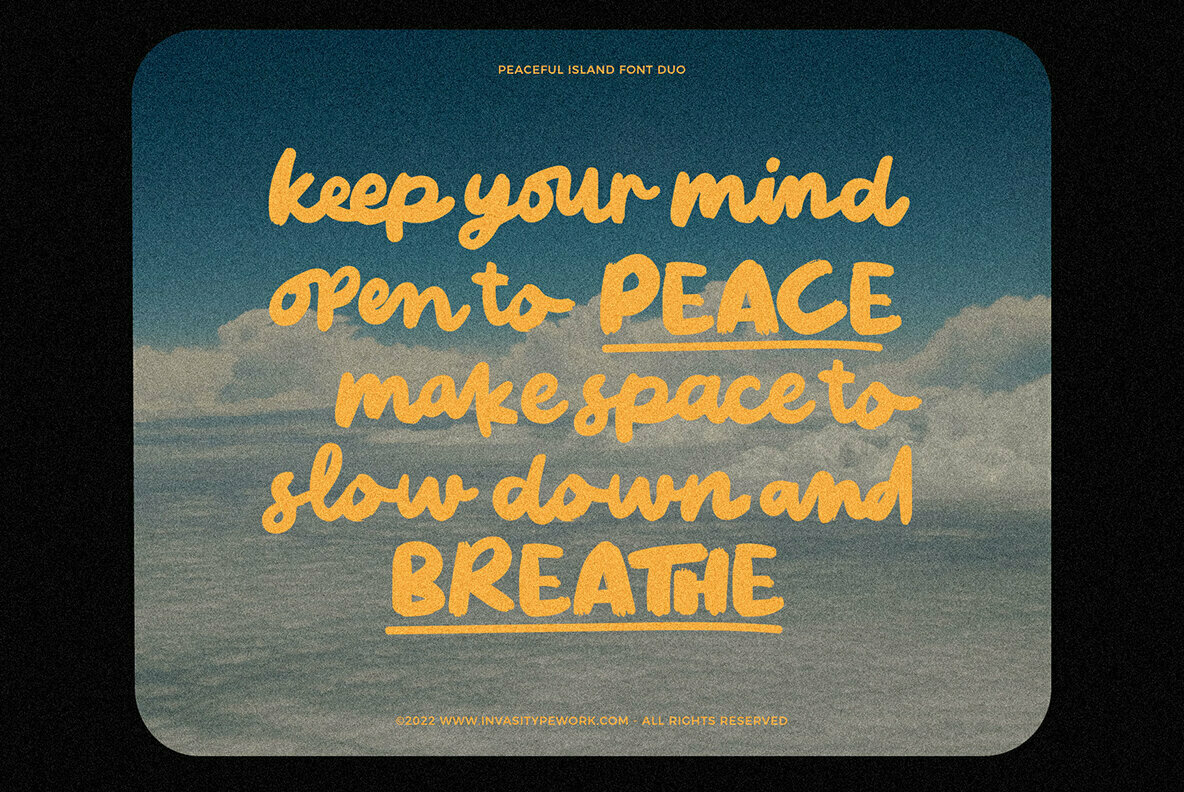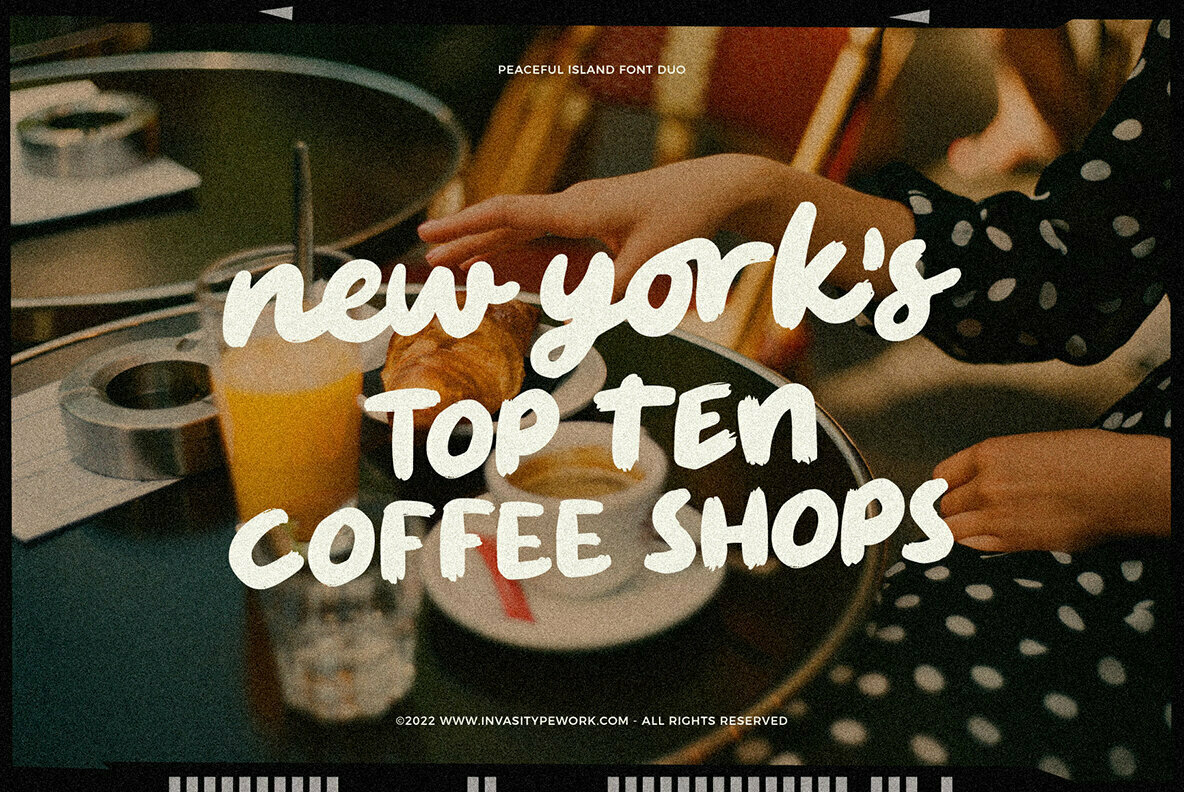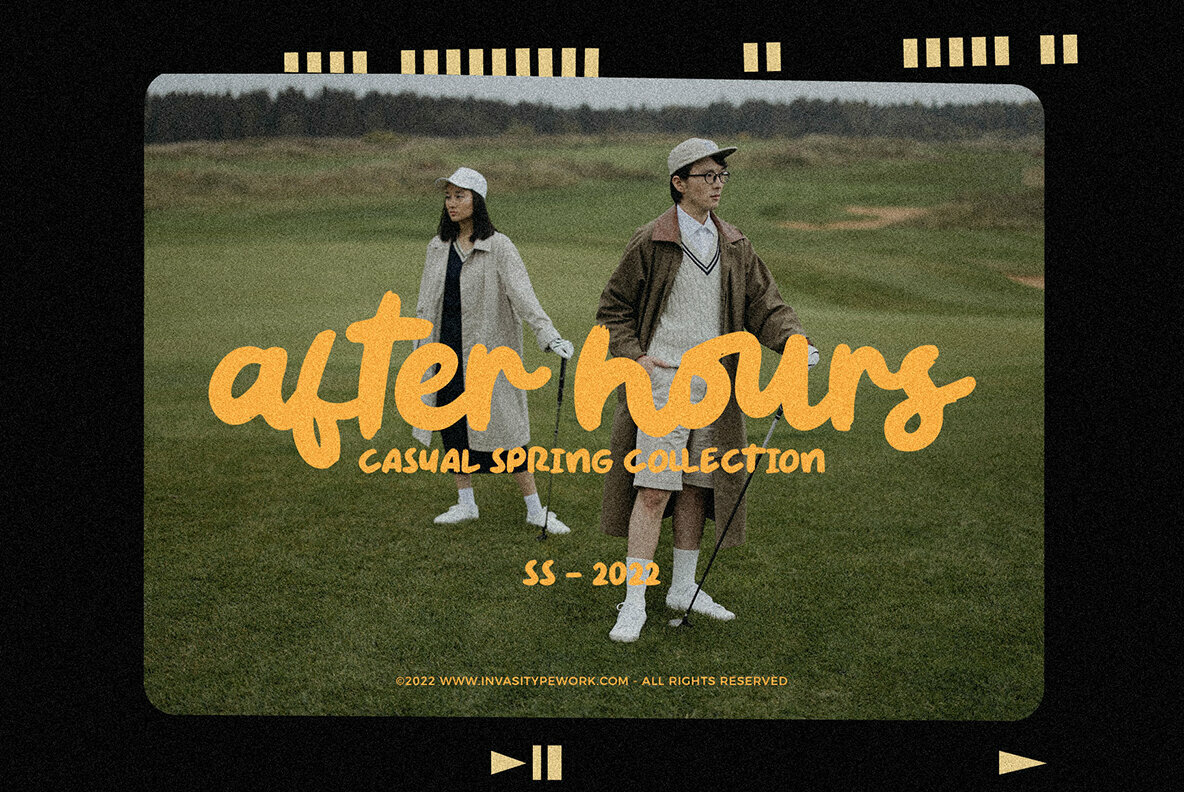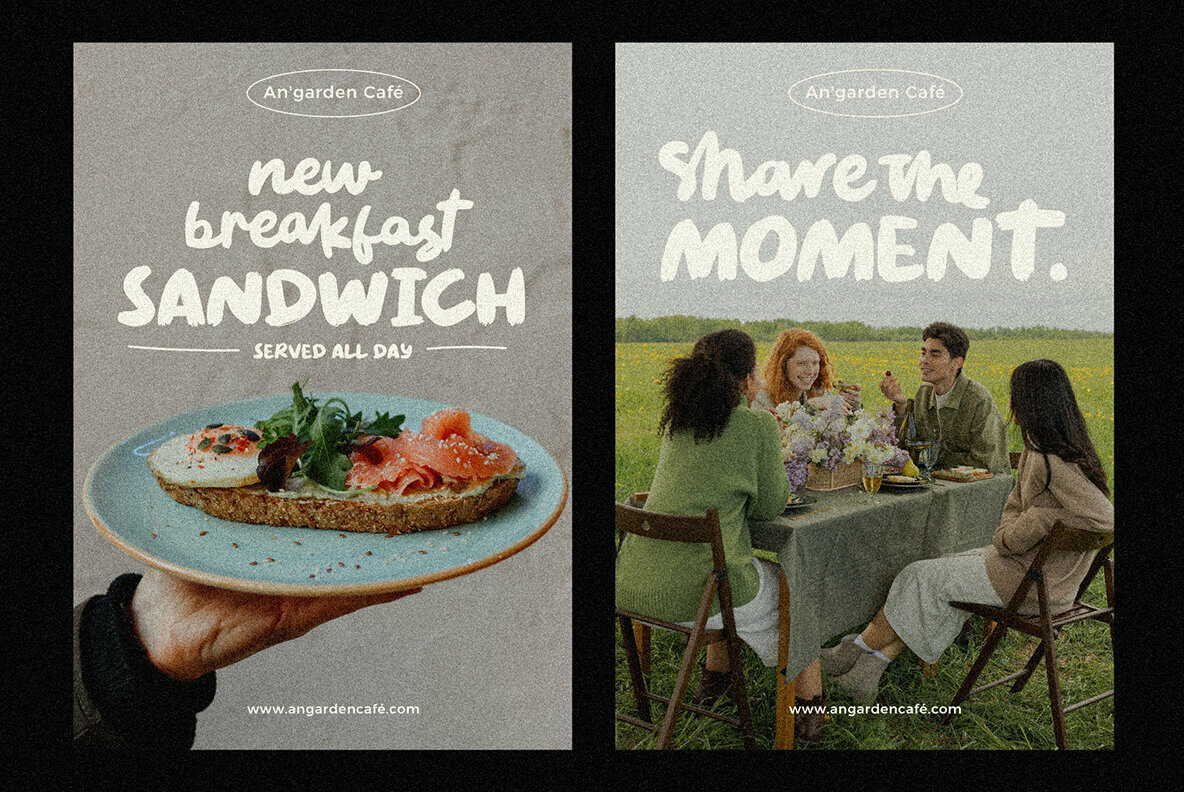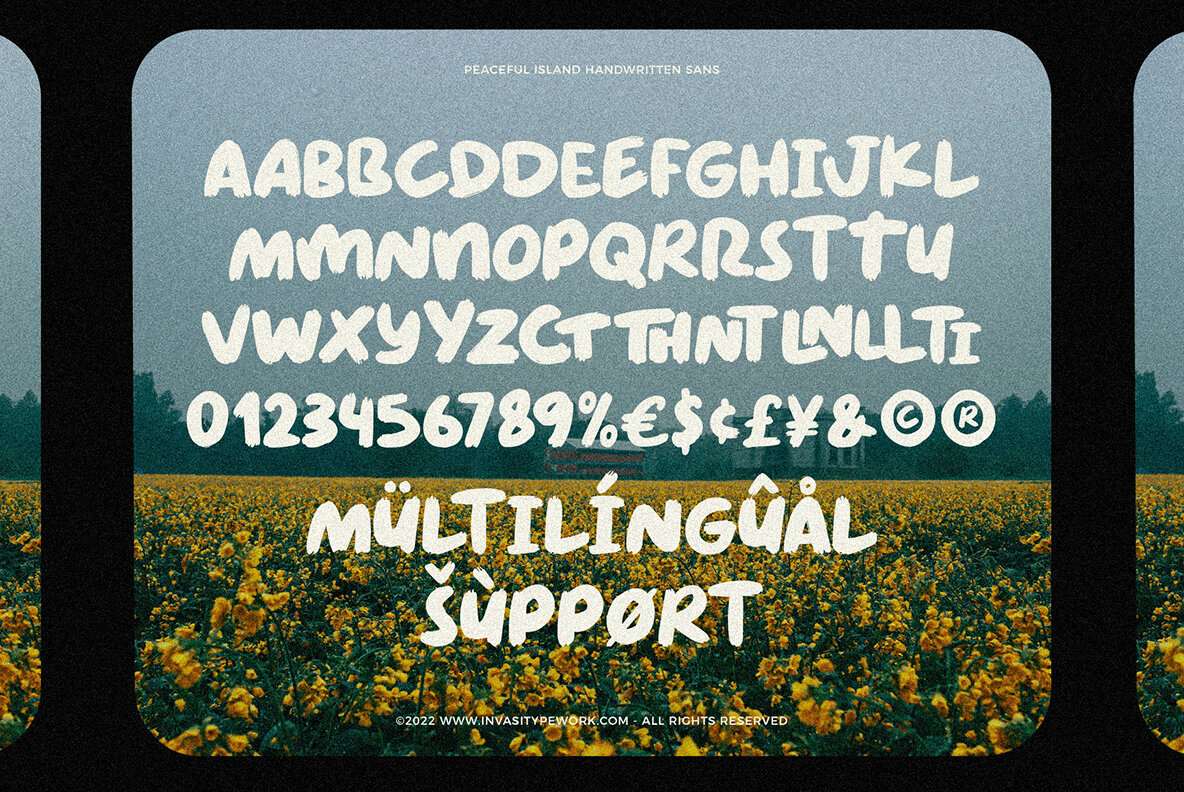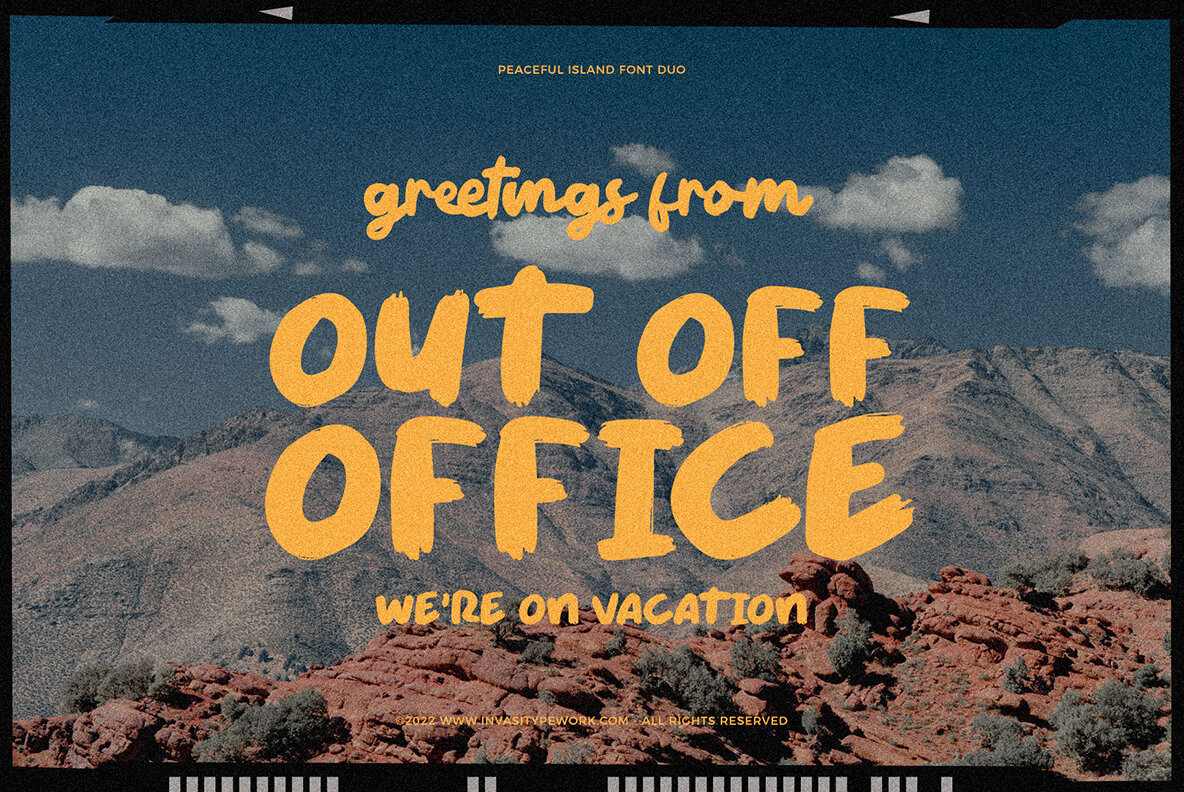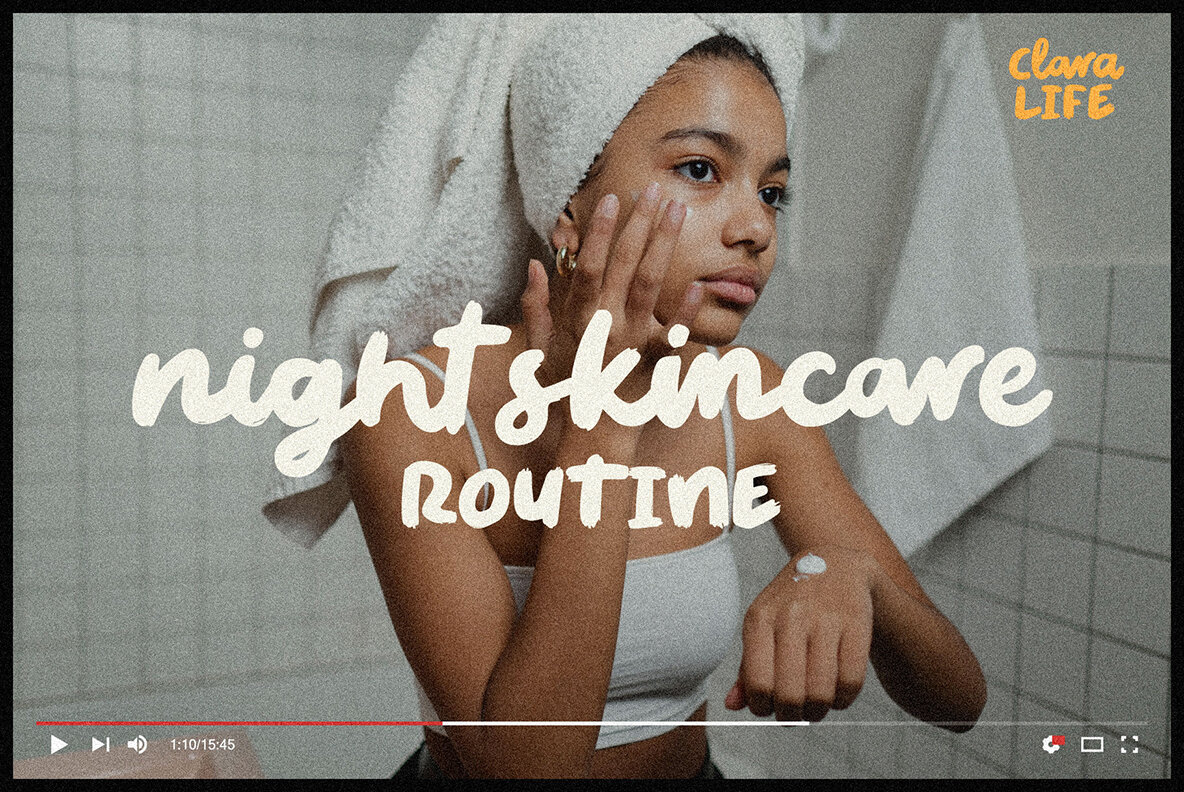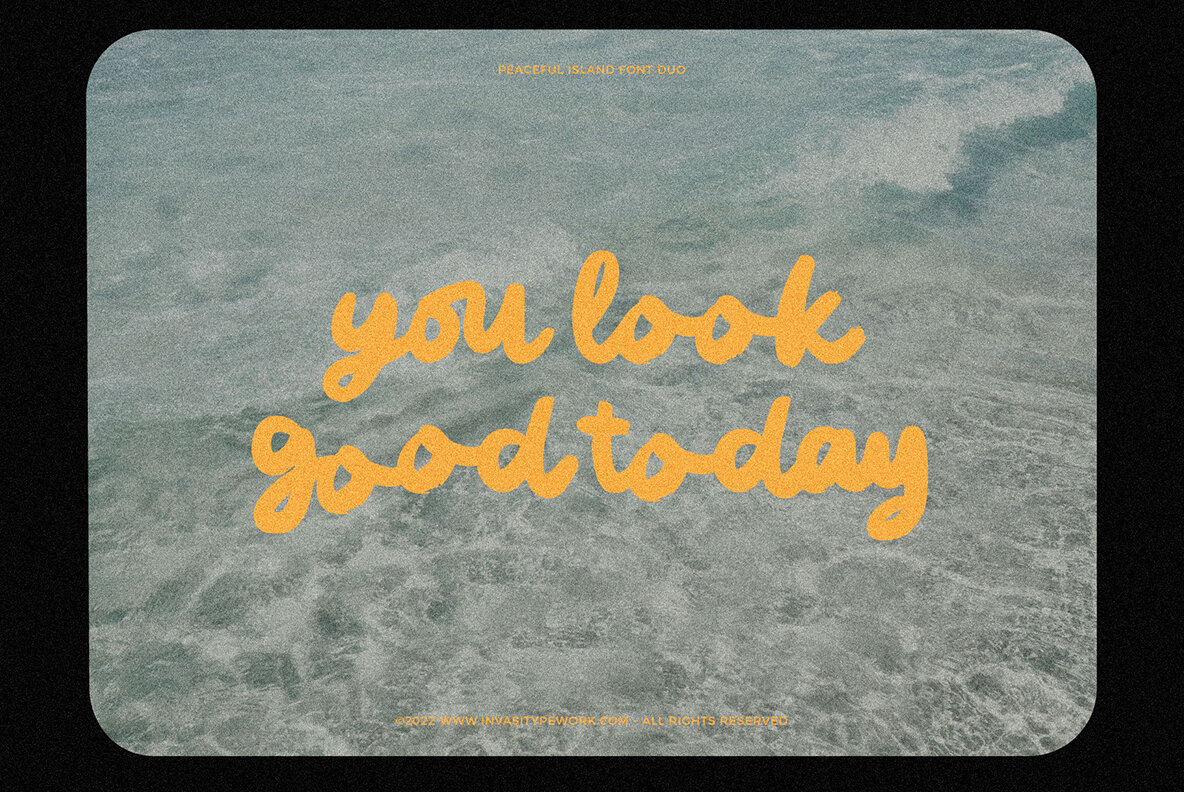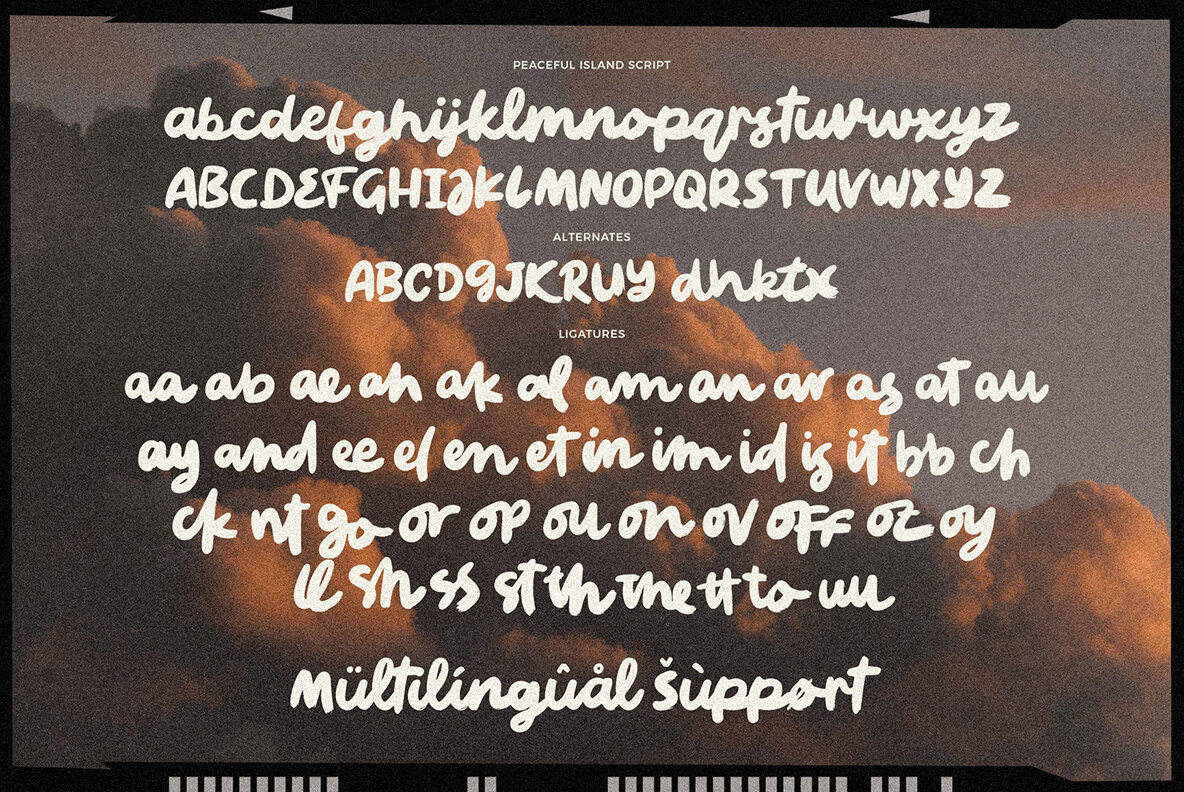
Peaceful Island Font Duo
Peaceful Island is a fun, playful font that's perfect for logos and vloggers. The handwritten style of this font design will keep your content feeling young while still maintaining professionalism.
- Numerals & Punctuation
- Alternates and Ligatures
- Multilanguage Supports 60+ Latin based languages